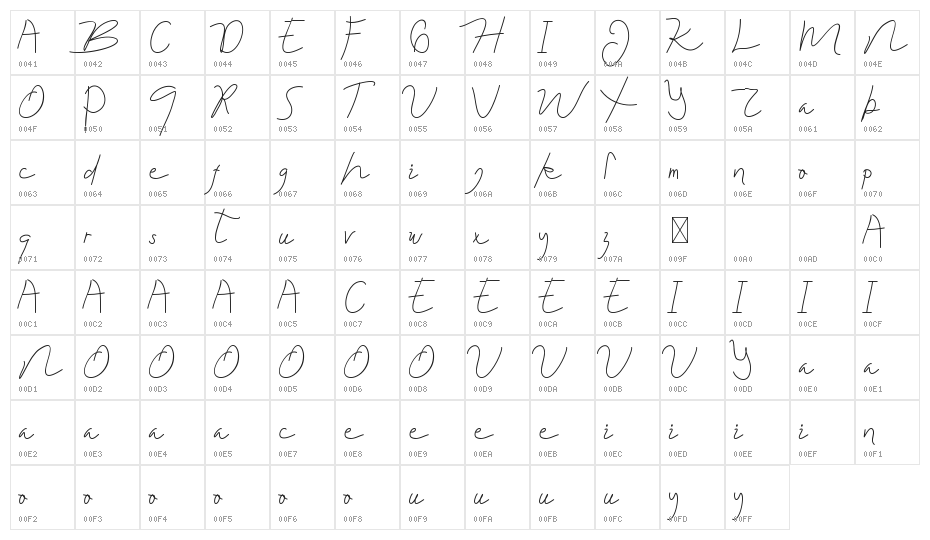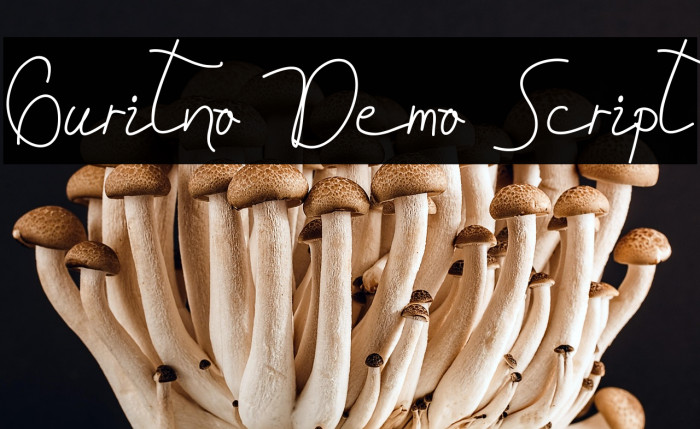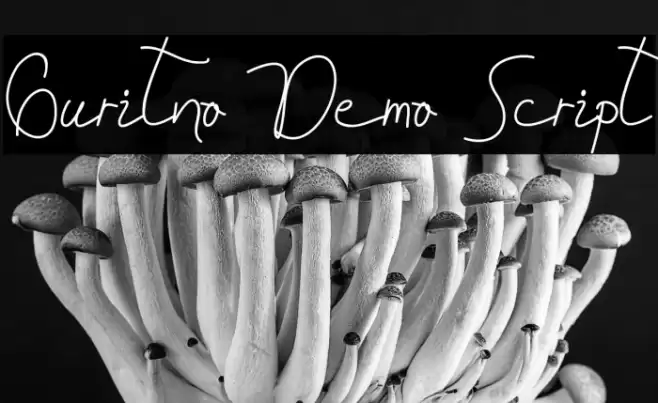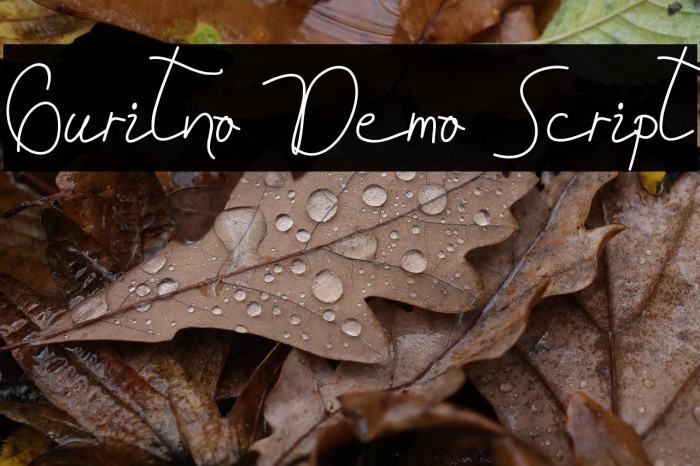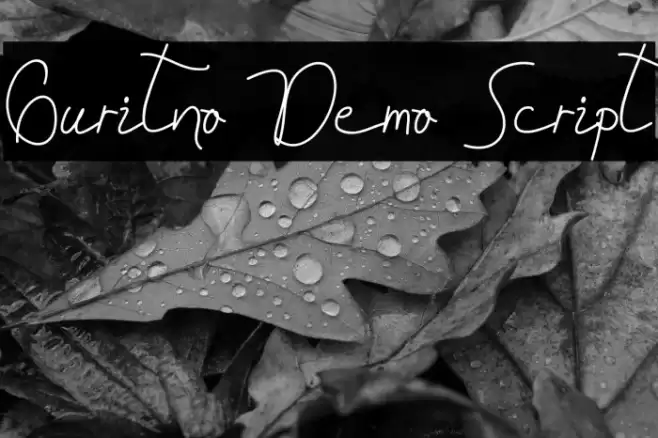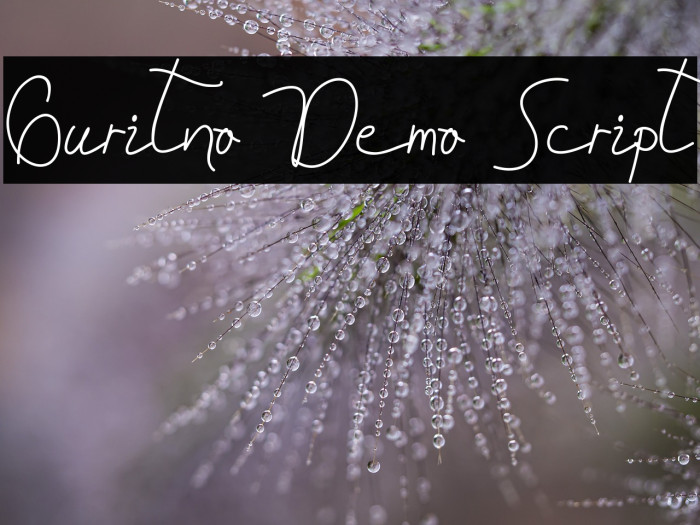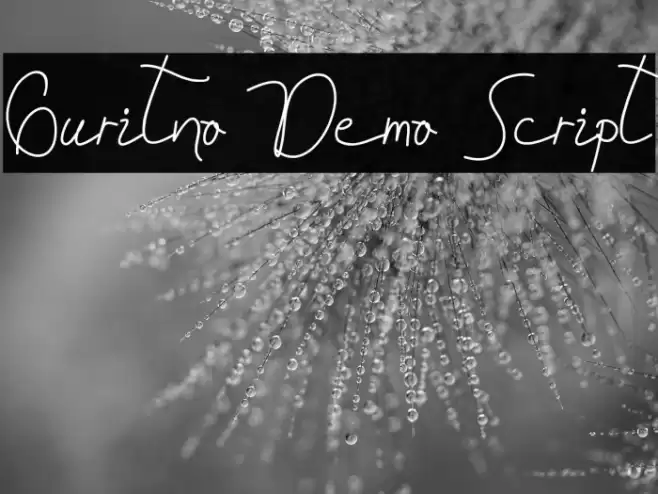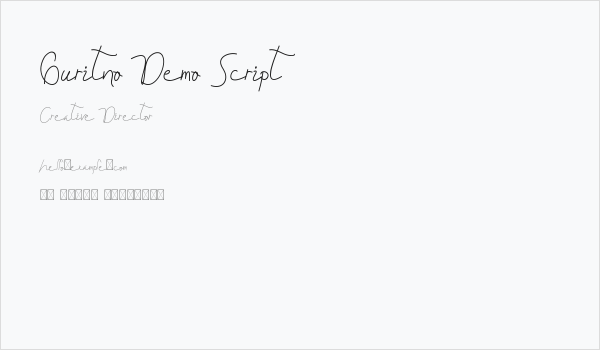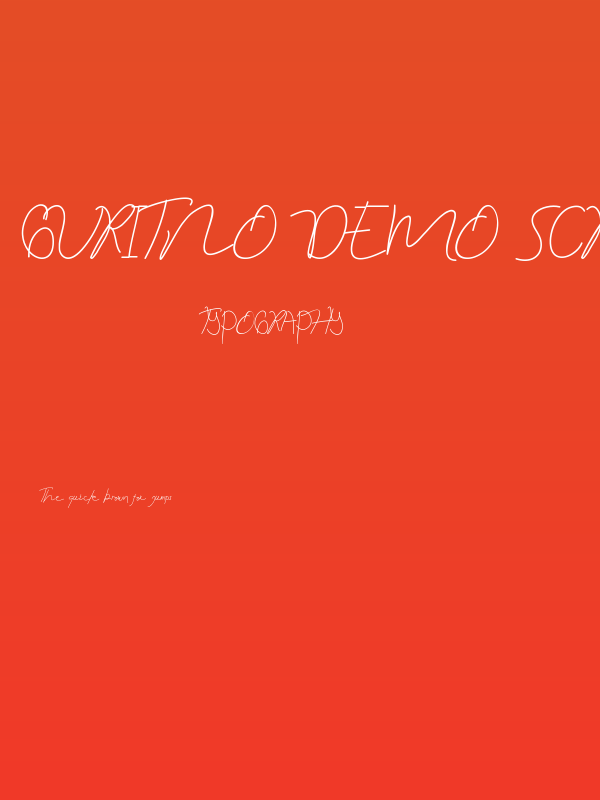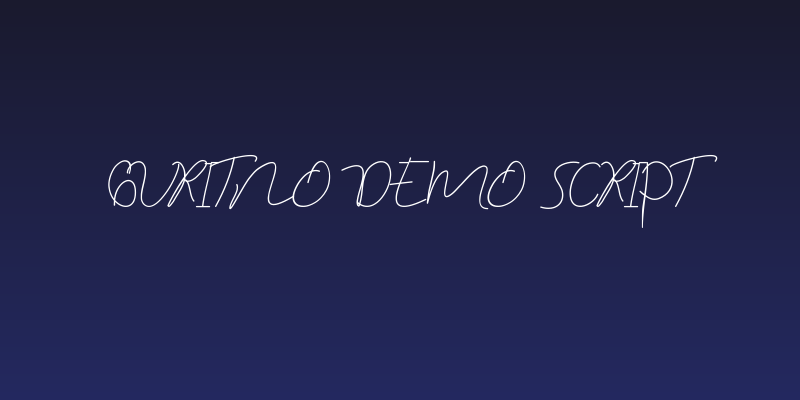
Guritno Demo Script Font
Guritno Demo Script Description
This font exhibits a fluid and elegant script style, characterized by its cursive and handwritten appearance. The letters are interconnected with smooth, flowing lines, creating a sense of movement and grace. The uppercase letters are slightly more structured, while the lowercase letters maintain a consistent, freeform style. The strokes are thin and delicate, adding to the overall airy and sophisticated look. This font is ideal for projects that require a personal touch or a sense of elegance and refinement.
| Proposed Projects | Ideal for wedding invitations, personal branding, greeting cards, and elegant packaging designs. |